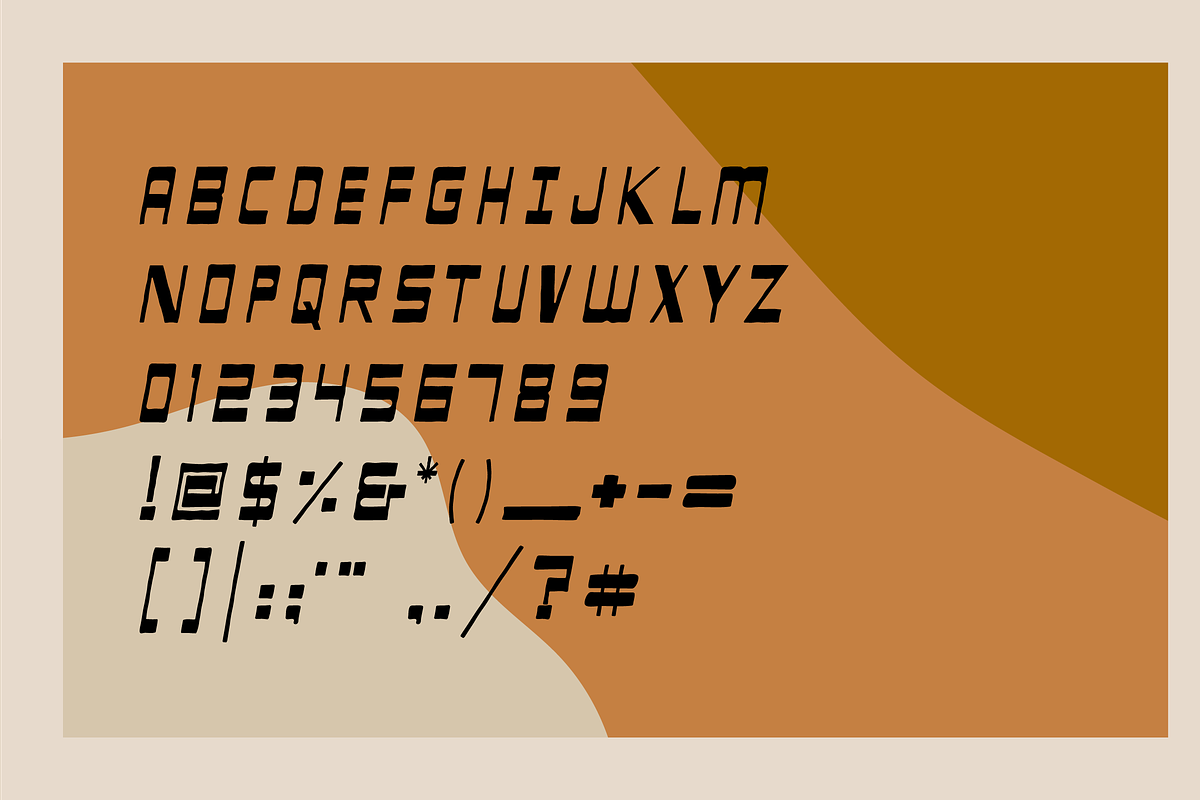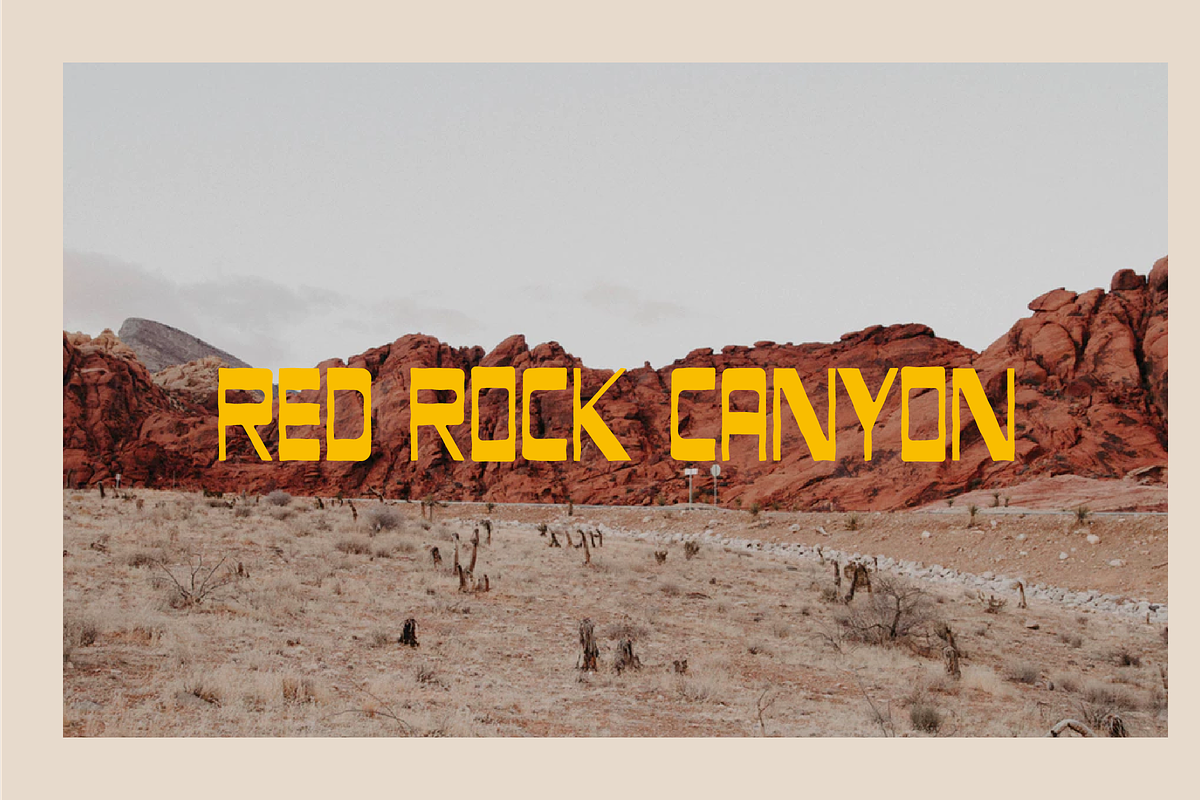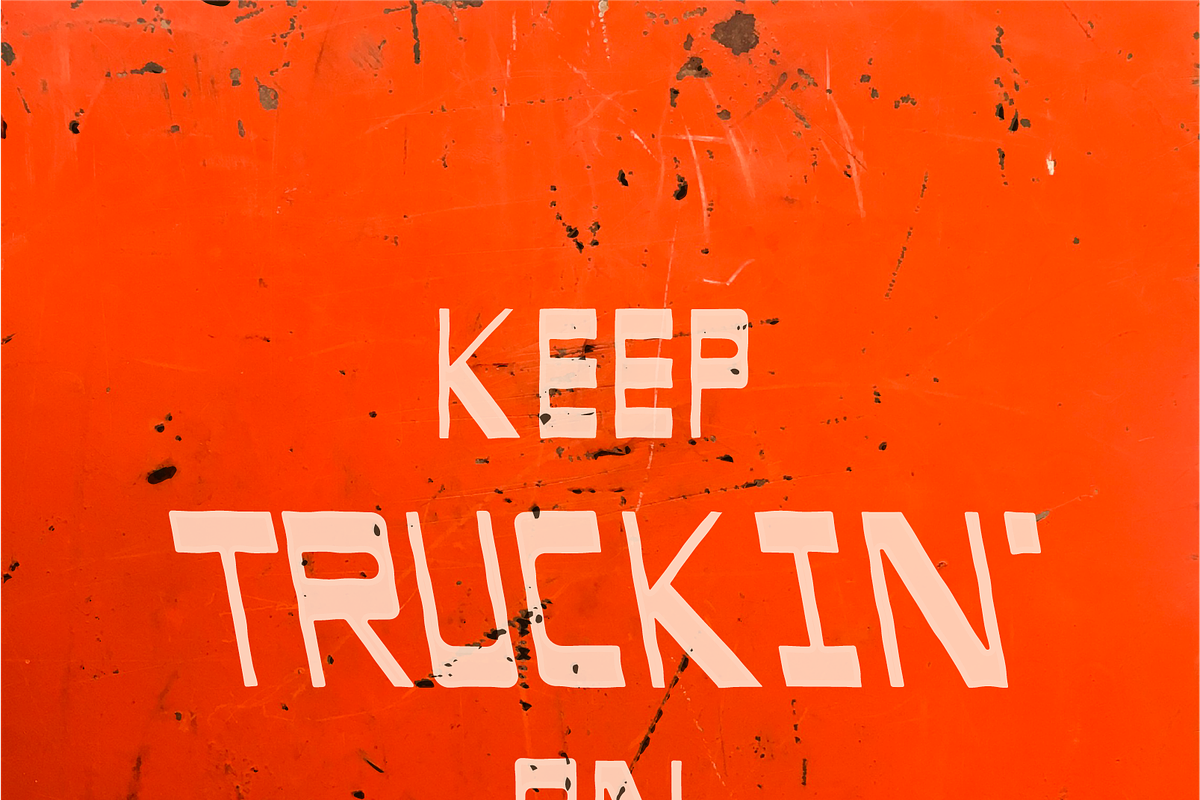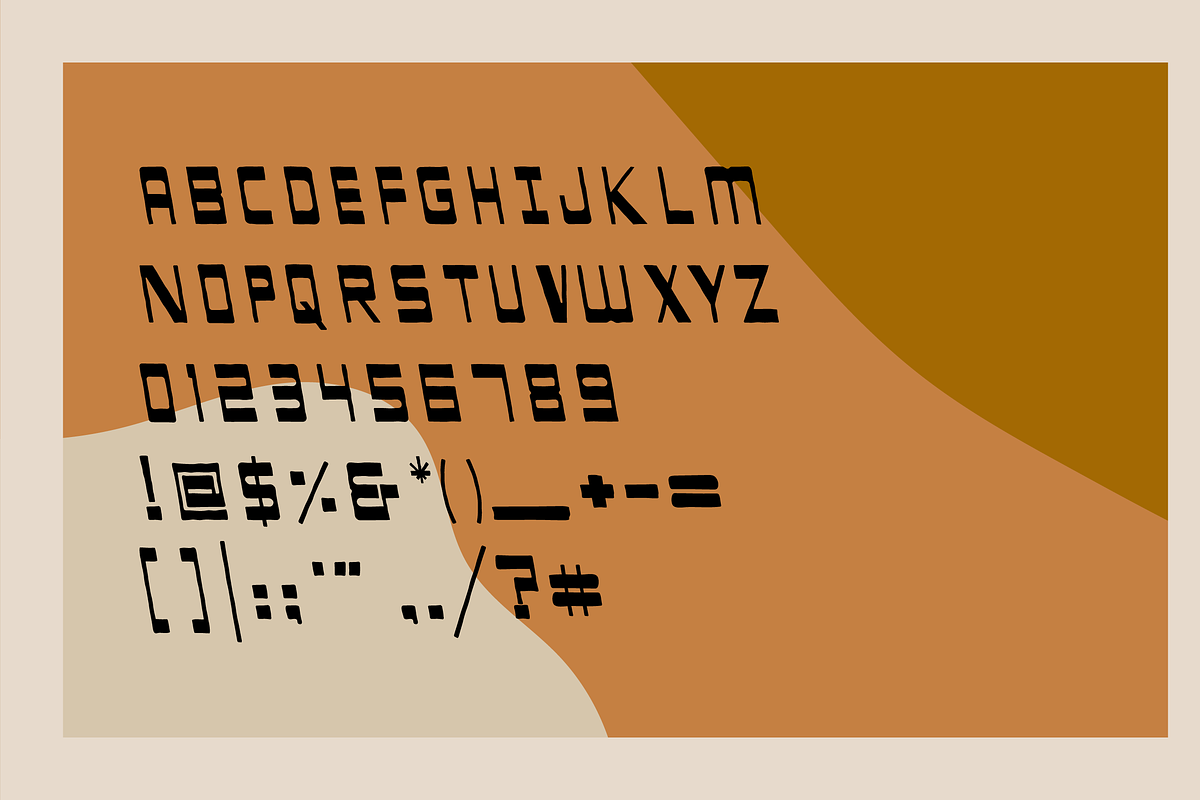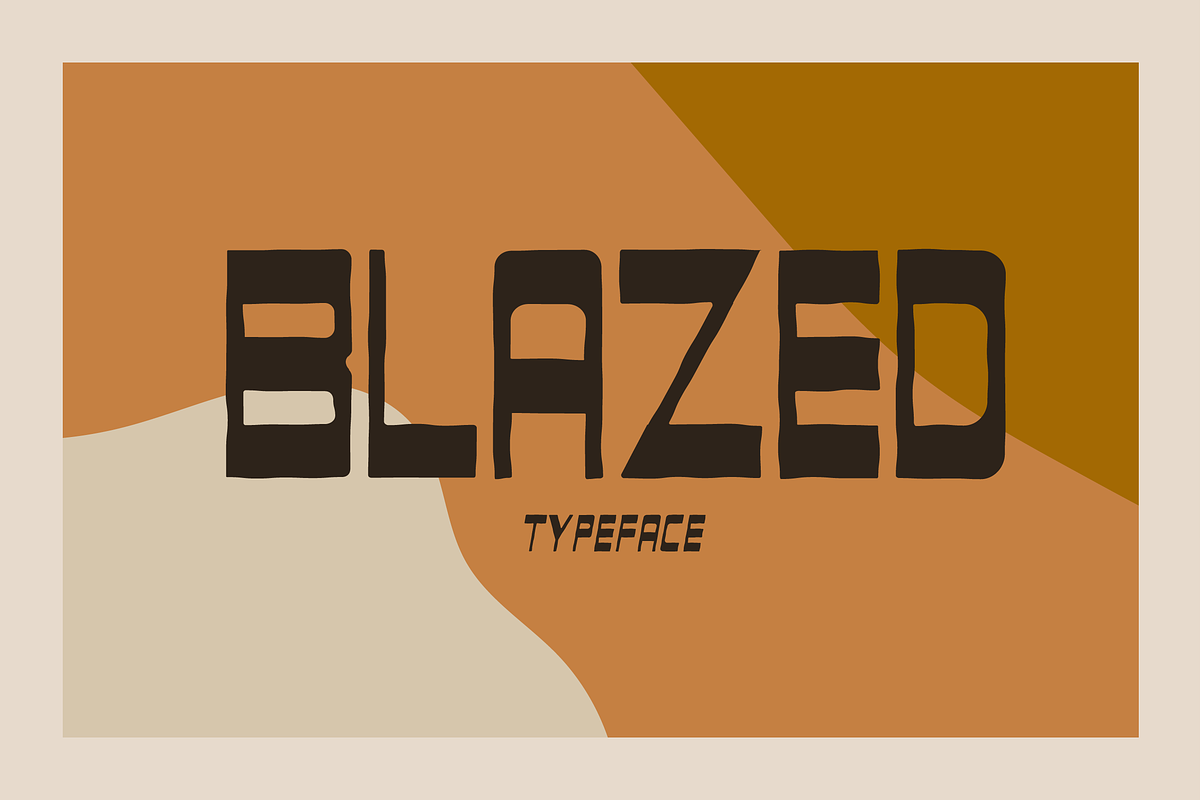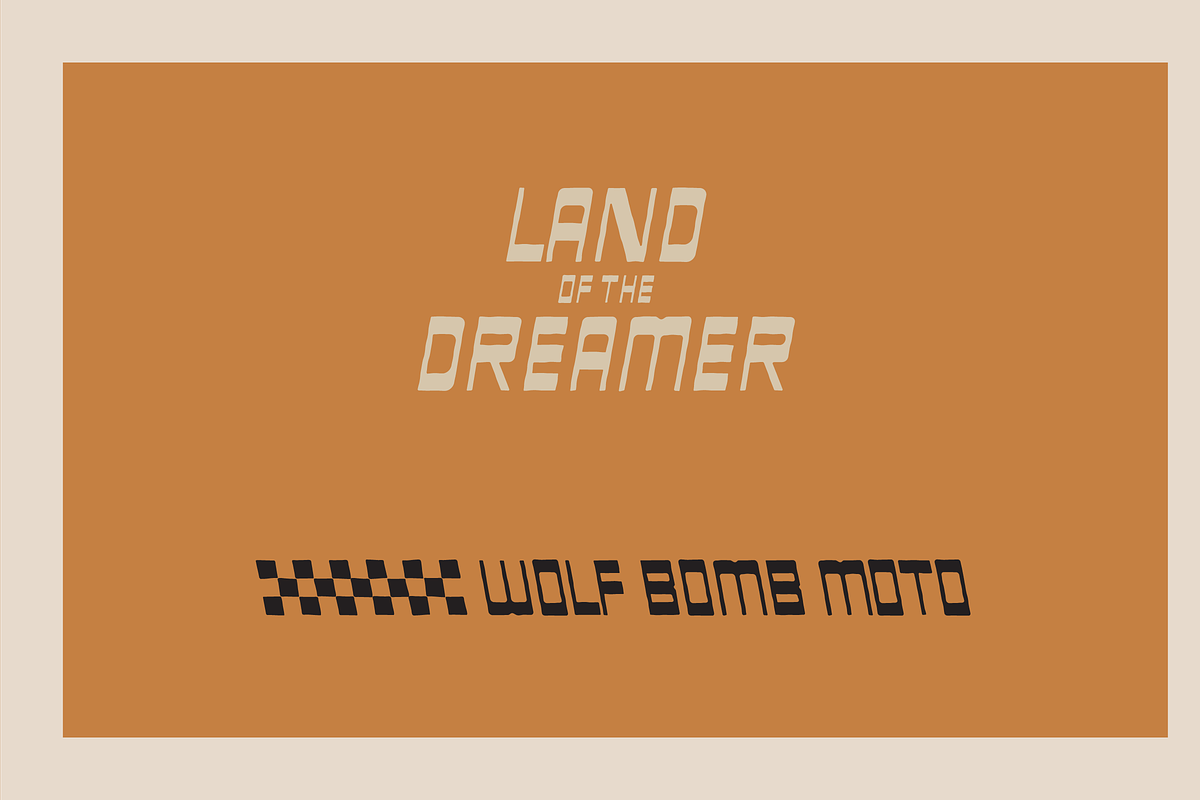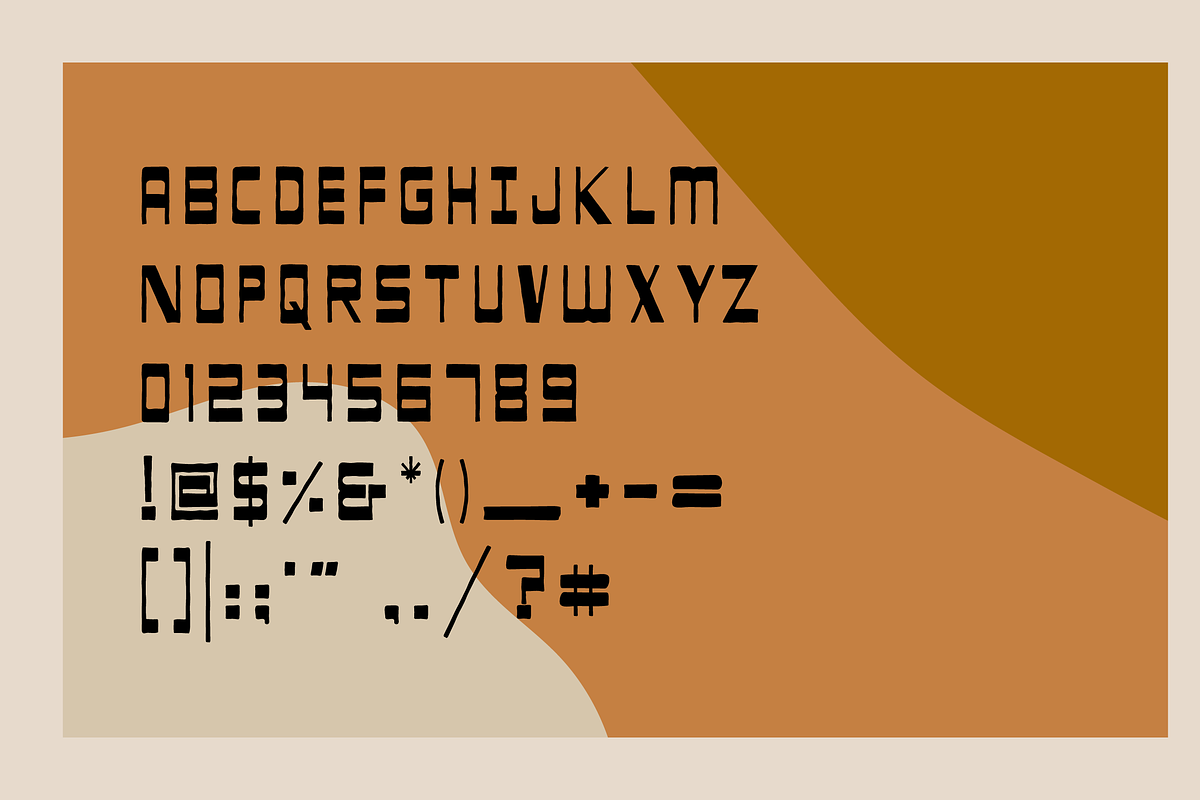
Blazed Typeface
Uppercase letters Numbers Most characters and punctuation (see photos for everything listed)
Blazed Typeface by wolf.bomb fits naturally into Branding, posters, packaging, typography.